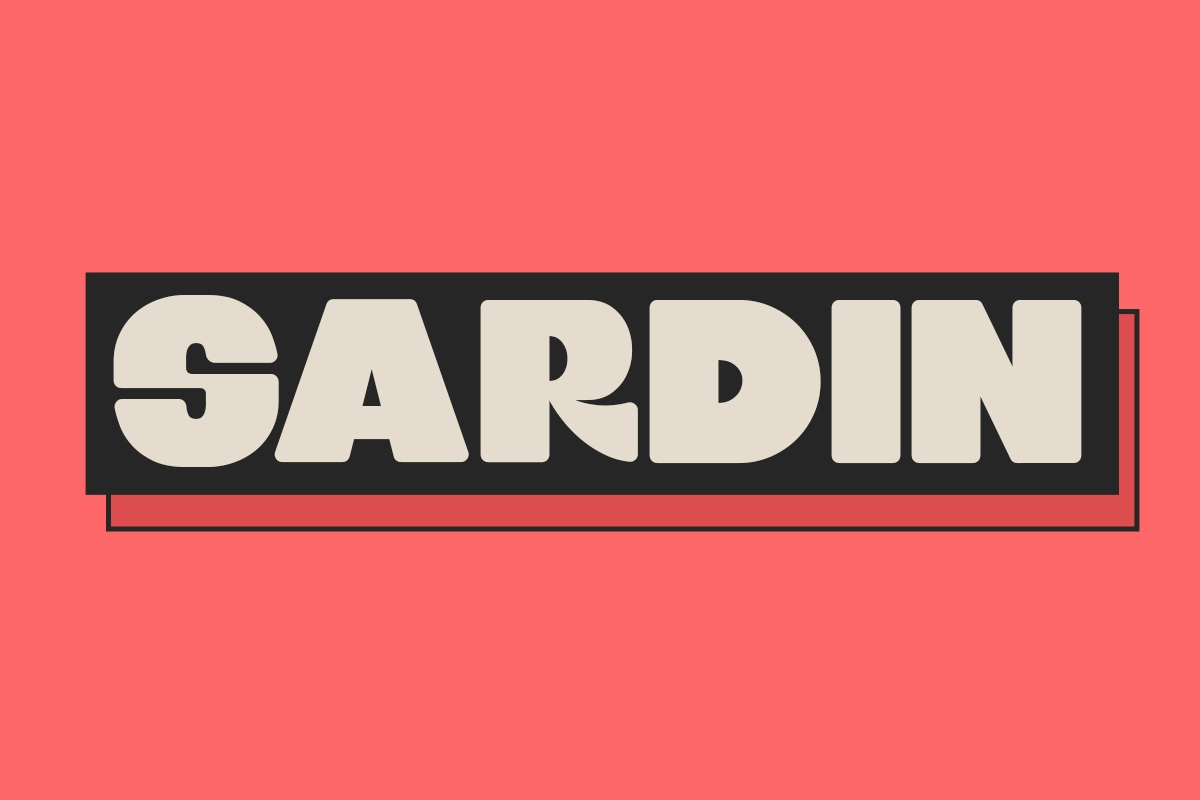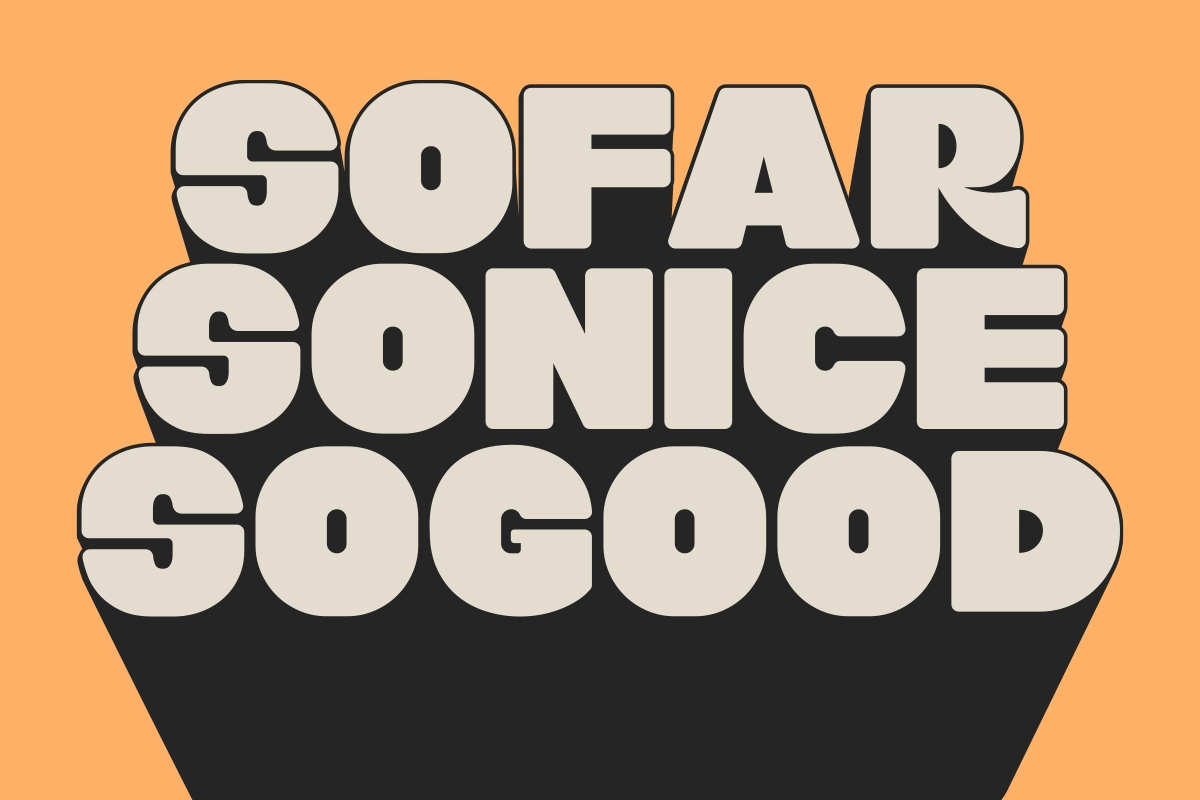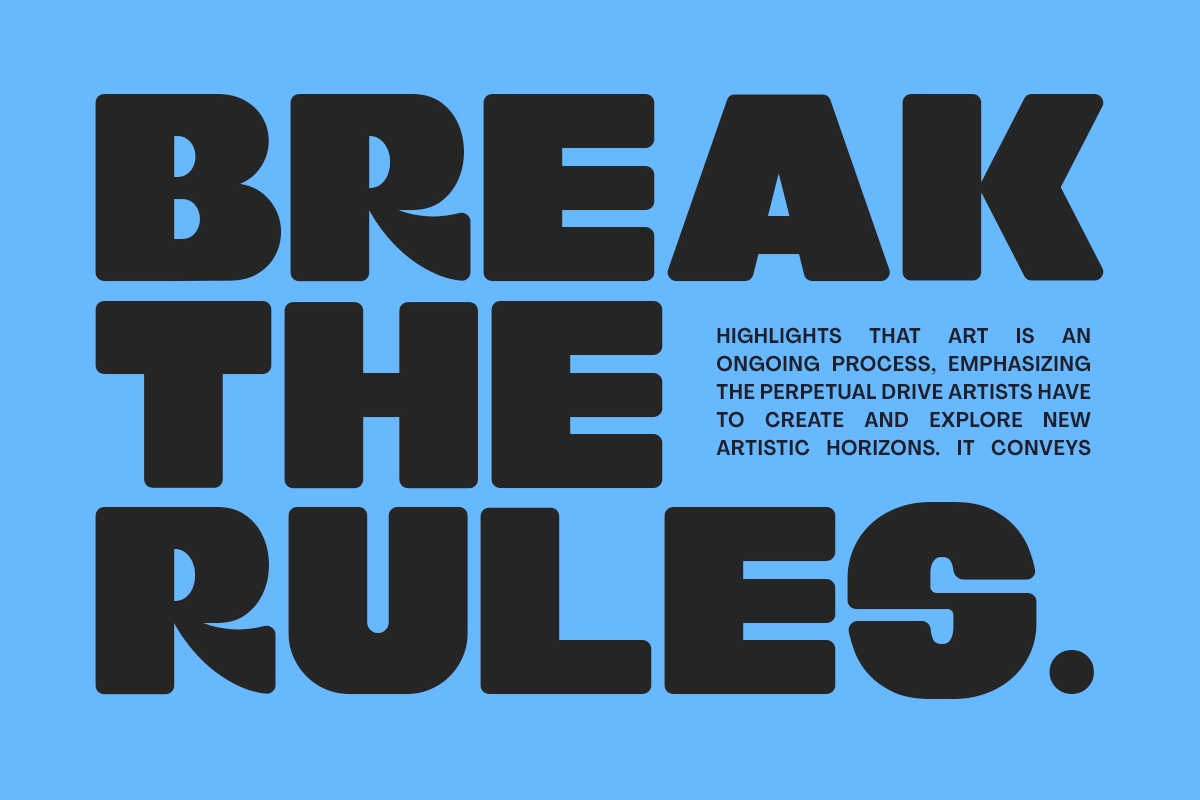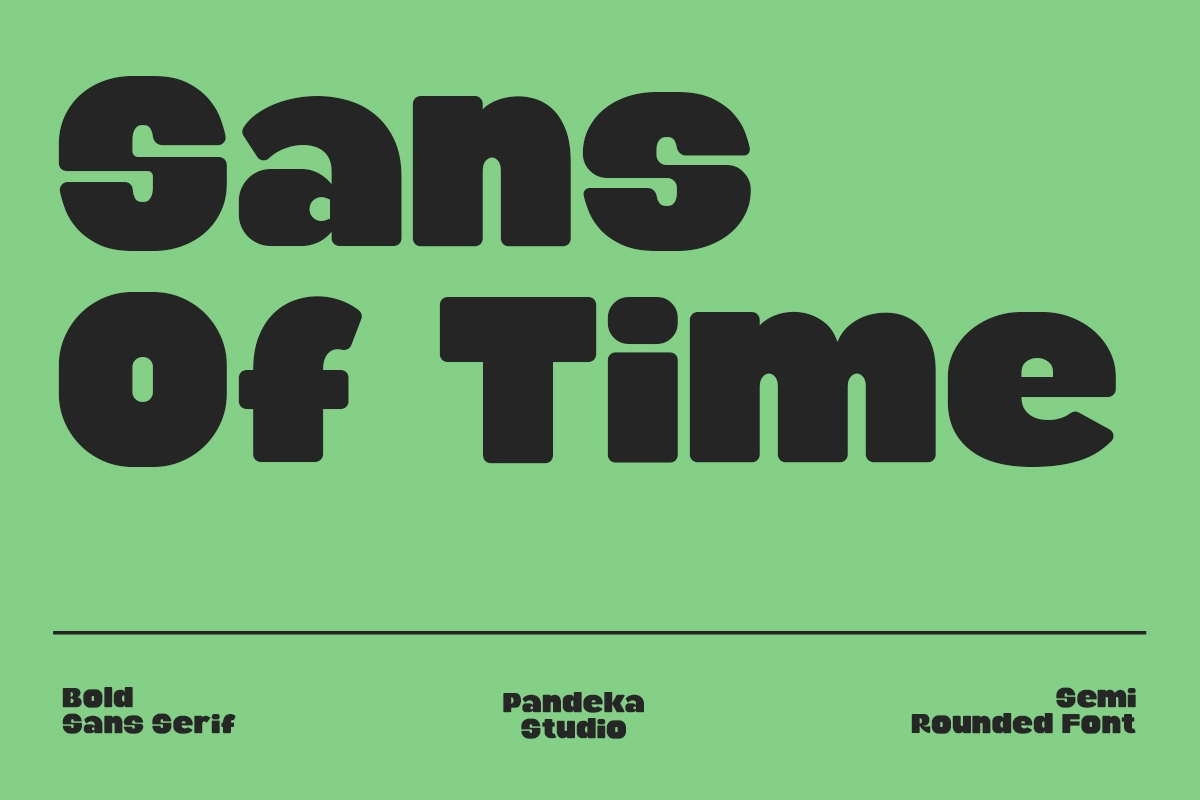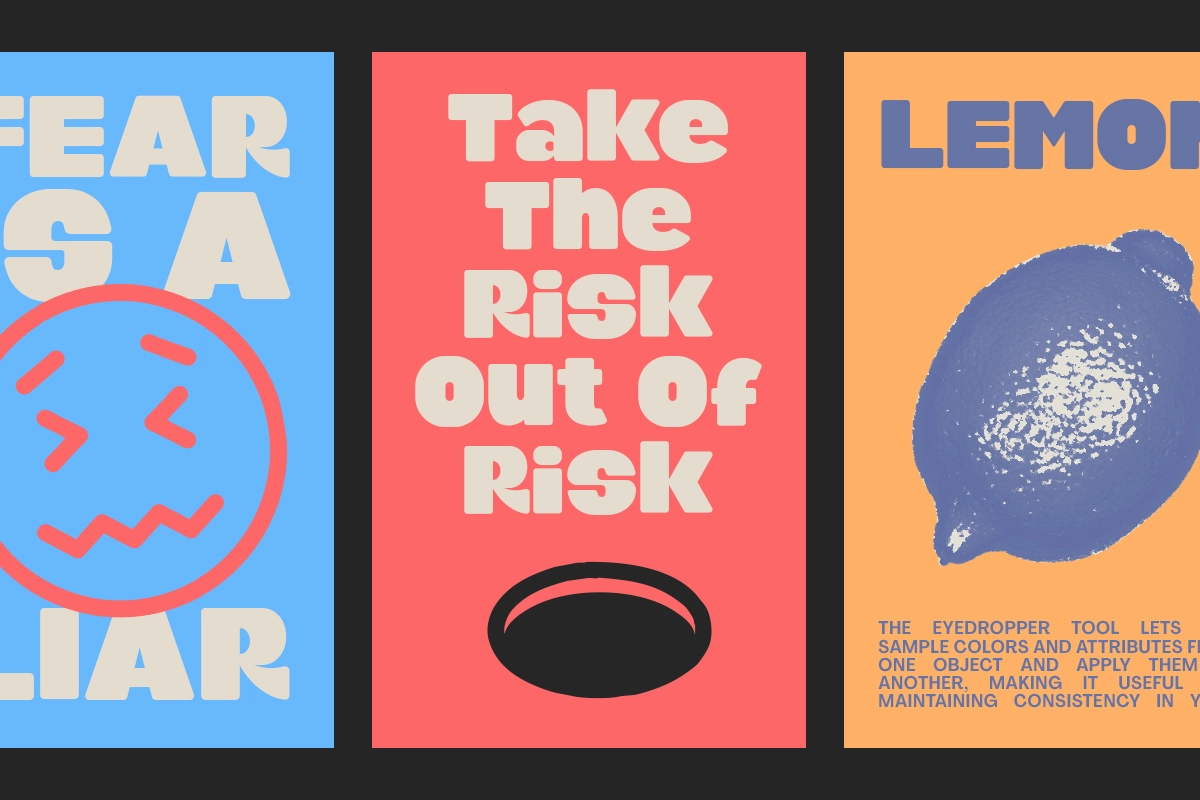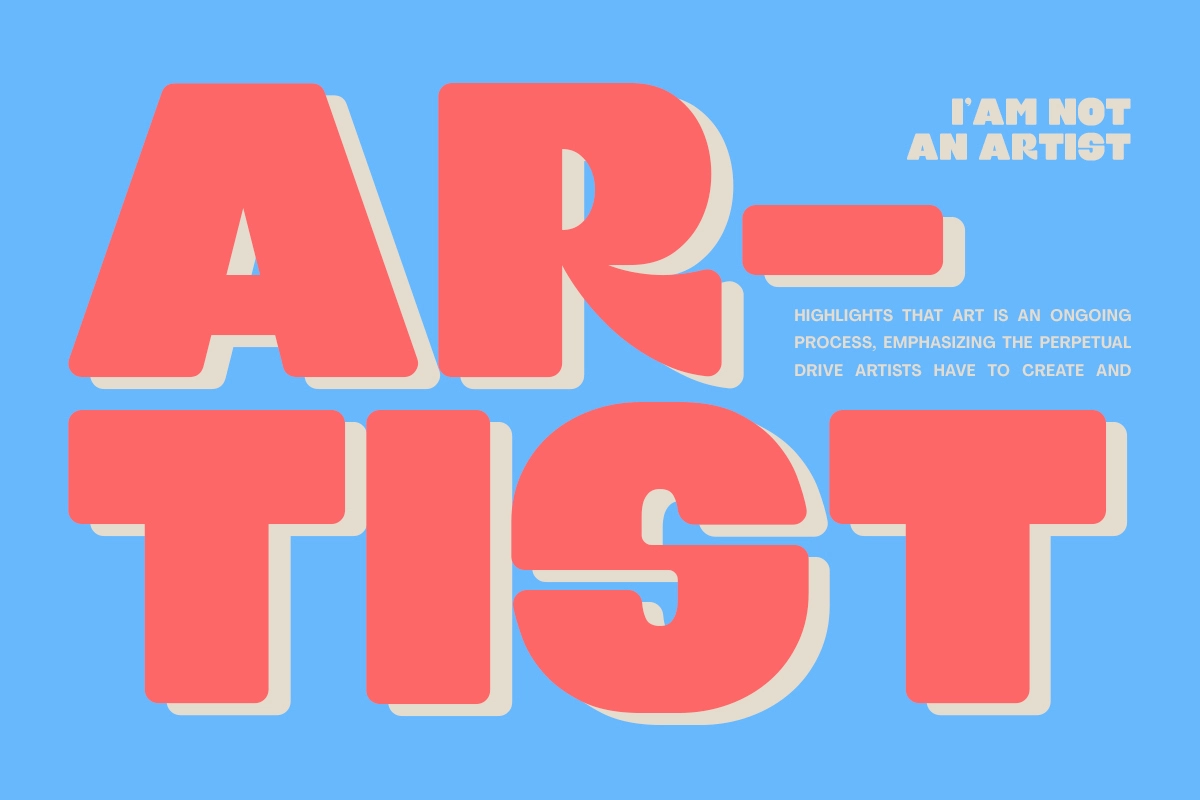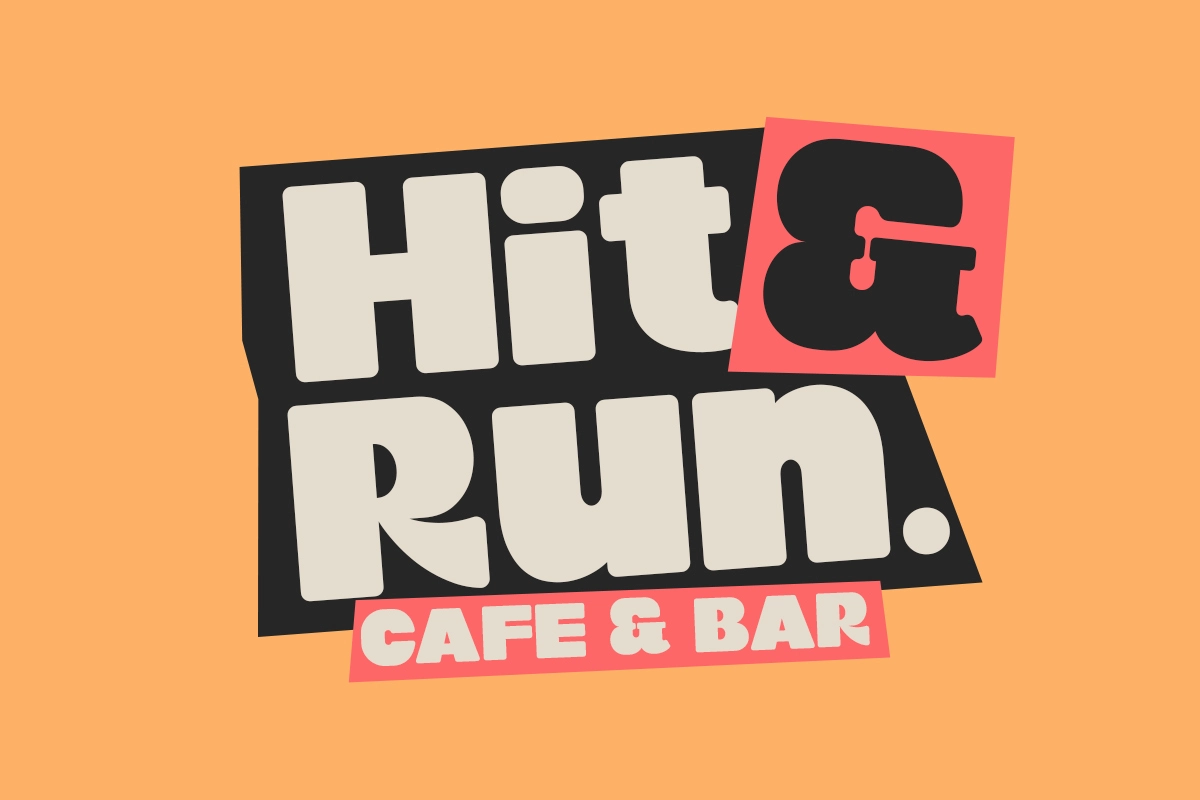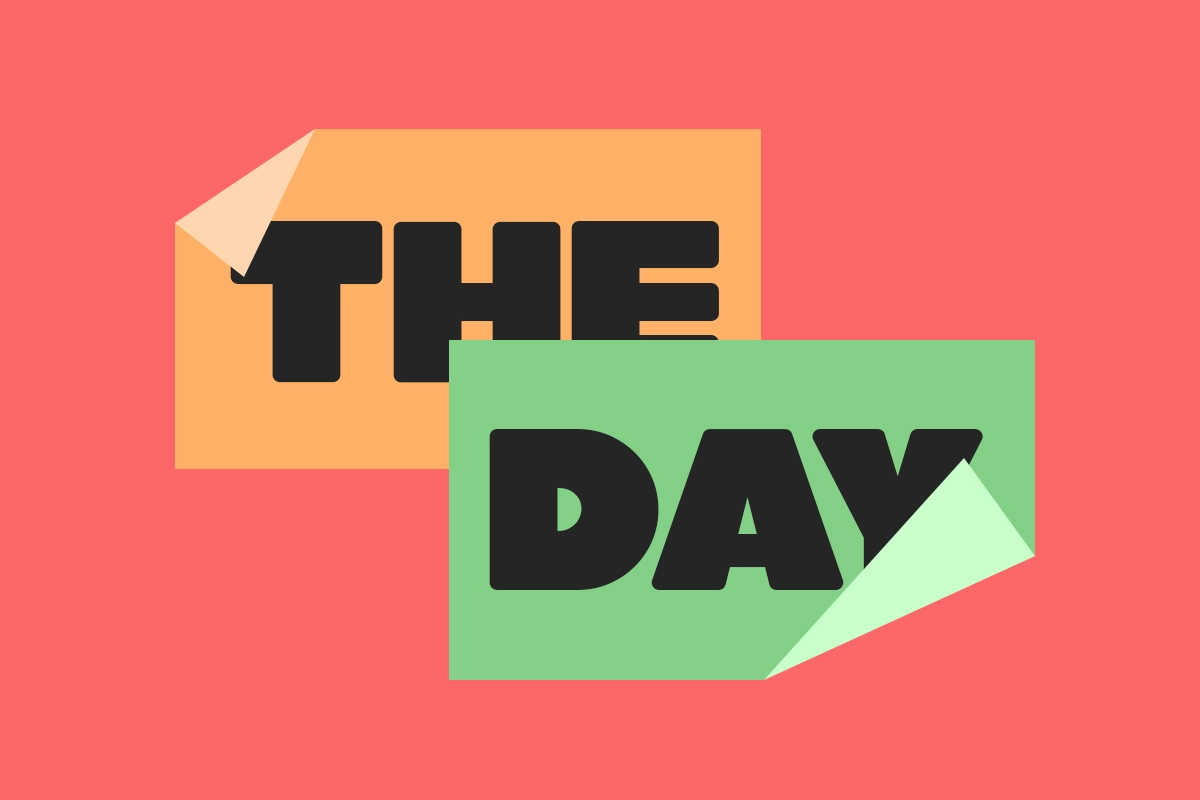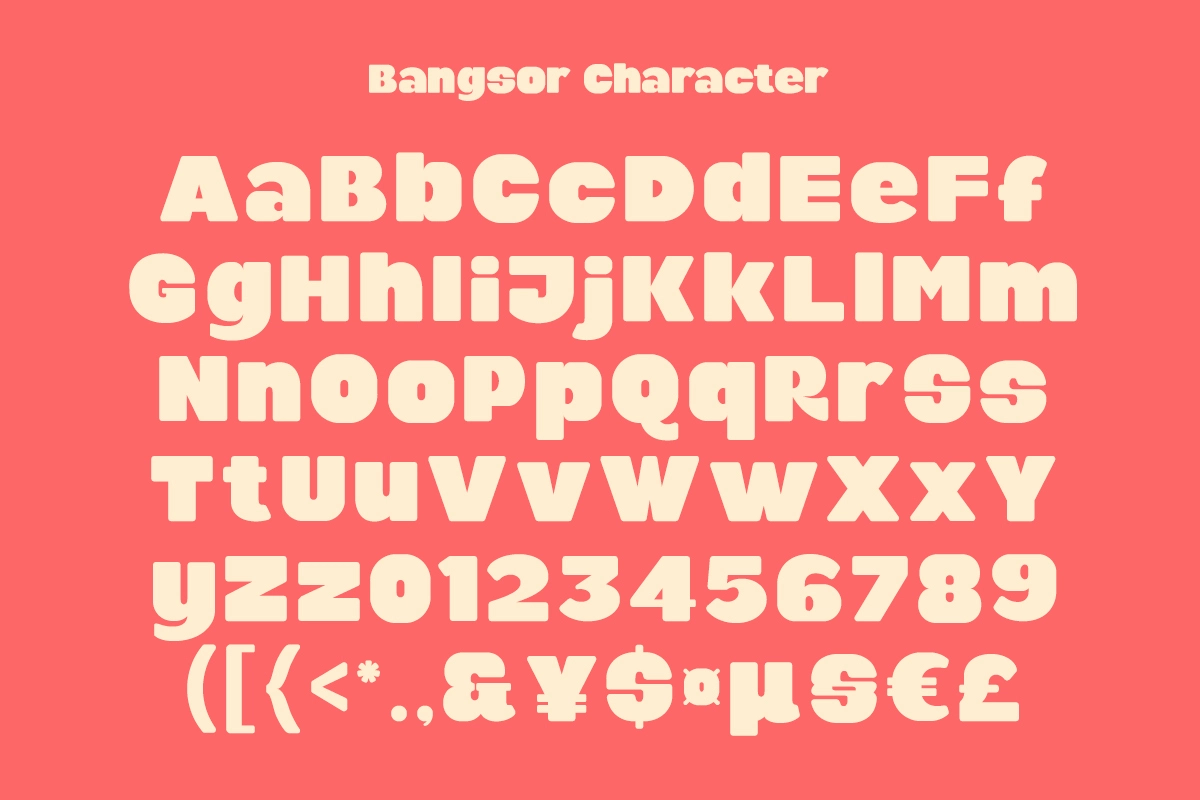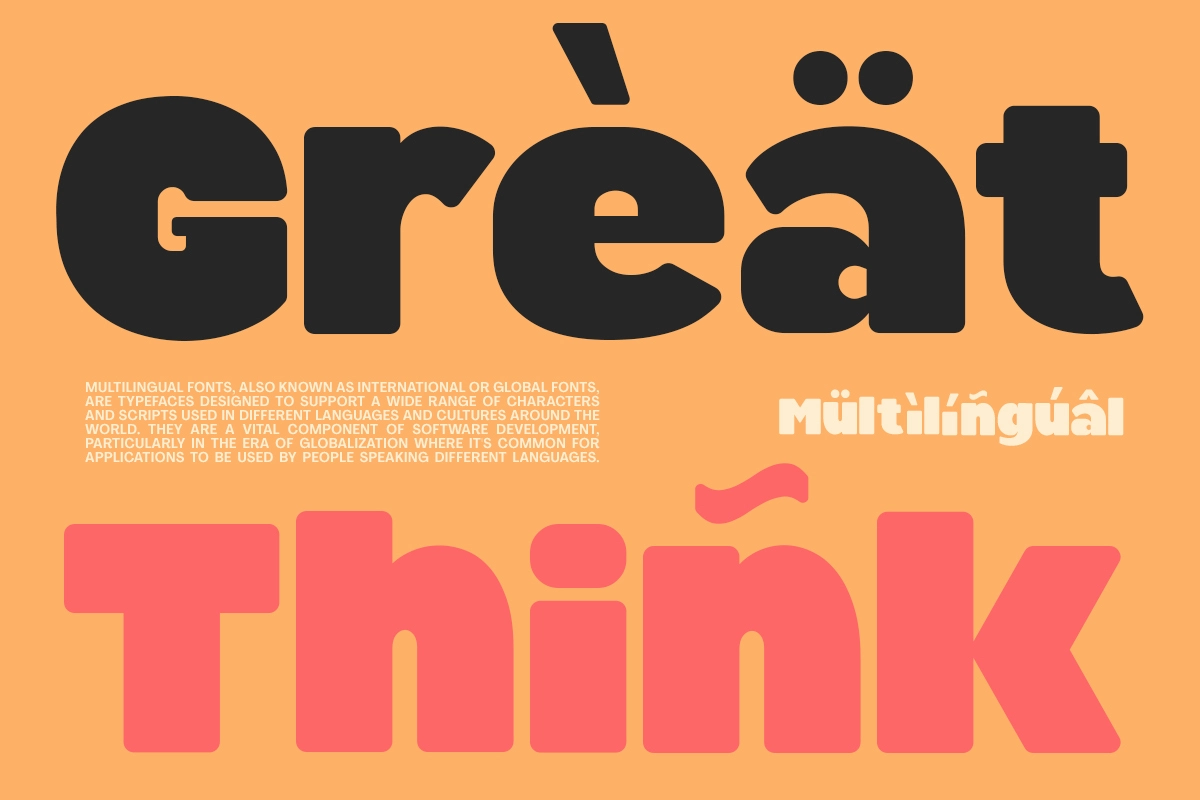
Sardin - Bold Rounded Sans Serif Font
Sardin
Sardin is a bold, semi-rounded font with chunky letterforms, tight bowl curves, and a loud 90s cartoon energy that nods to comic-book lettering and Saturday-morning logos. The weight sits heavy on the page while the rounded corners keep every shape friendly rather than aggressive, so it reads bold without going cold.
Sardin works best where type needs to carry a poster on its own. Use it for logotypes, branding marks, packaging headlines, title cards, comic-style lettering, sticker designs, kids' product labels, streetwear graphics, and social headlines — it also pairs easily with illustration or photography when a design needs a strong type anchor next to other art.